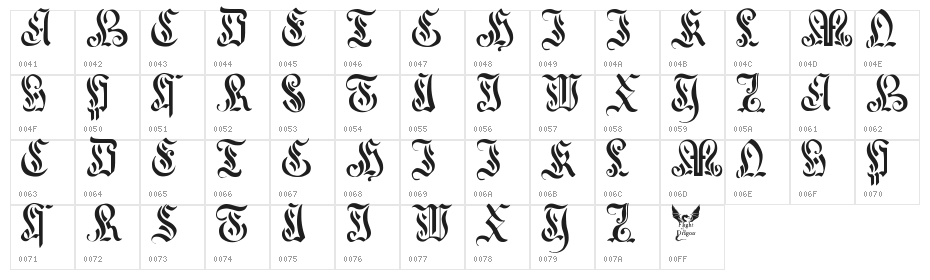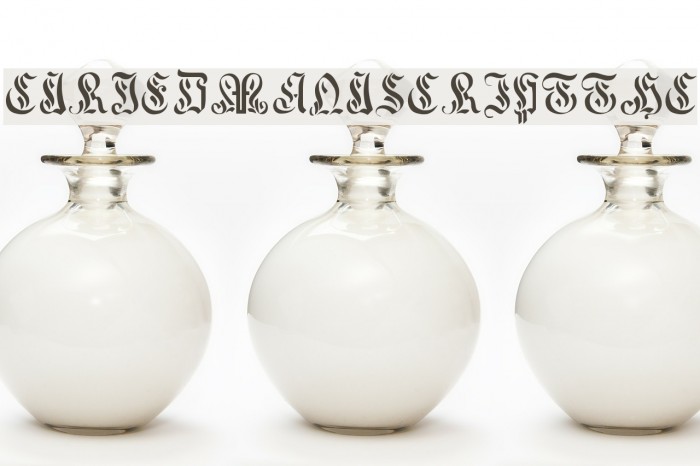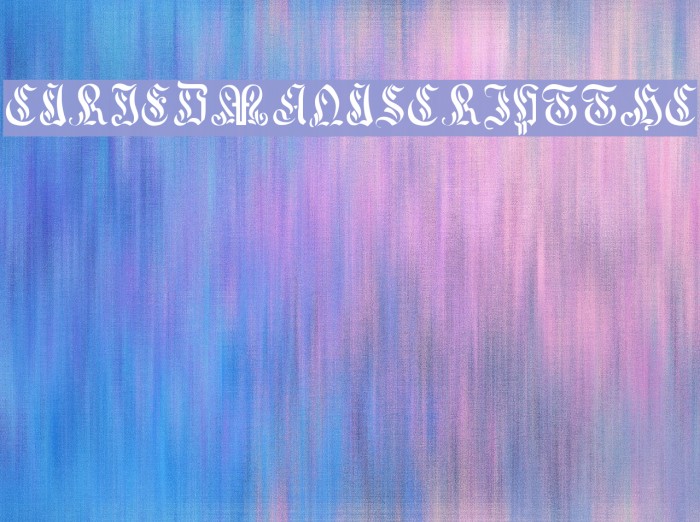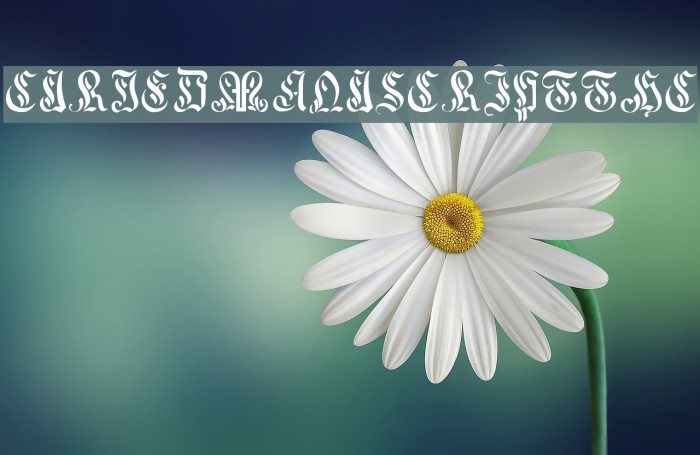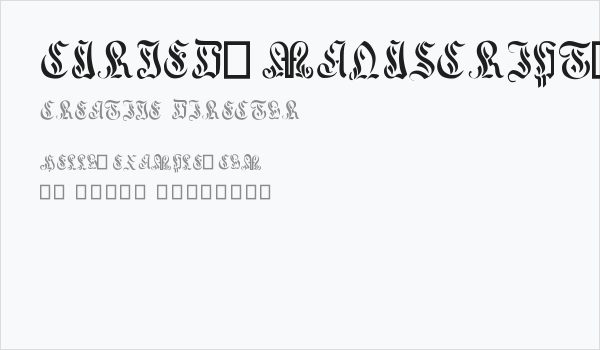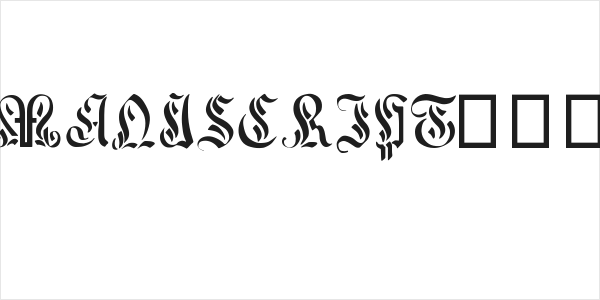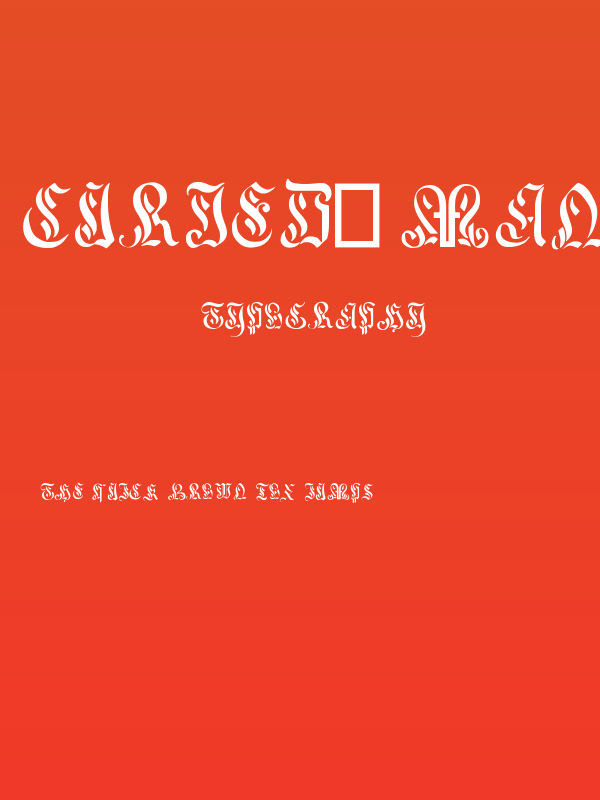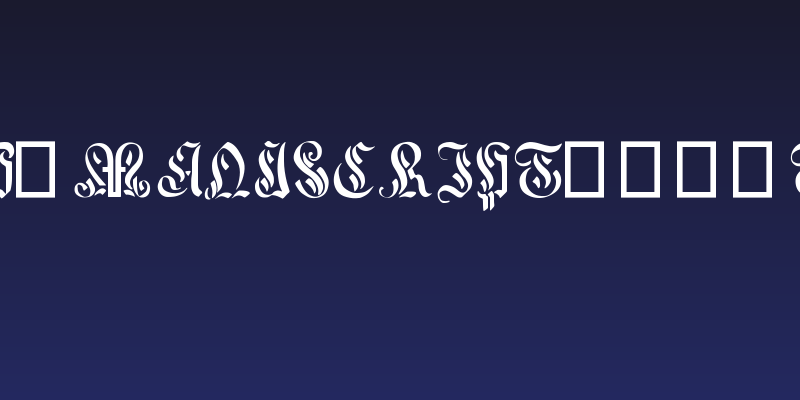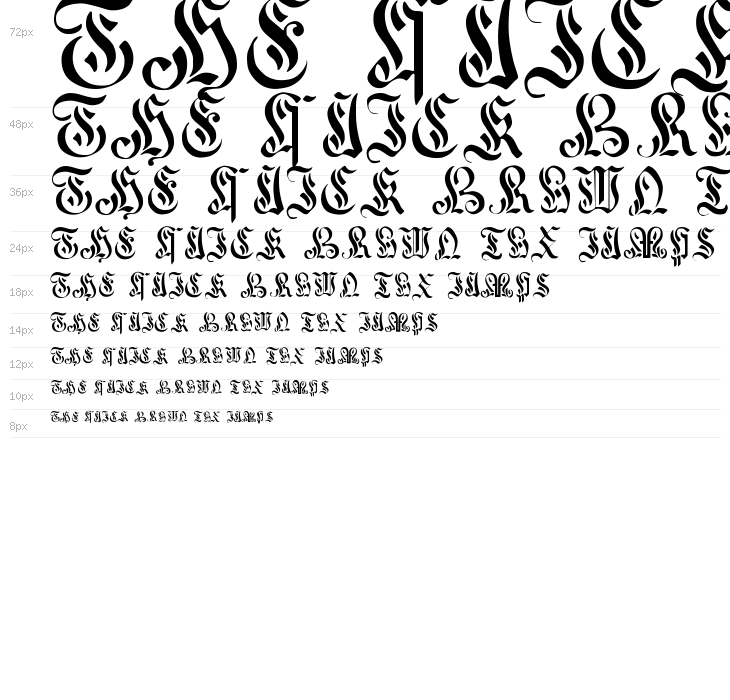
Curved-Manuscript--17th-c- Font
Curved-Manuscript--17th-c- Description
This font embodies the intricate and ornate style of 17th-century manuscripts, characterized by its elaborate curves and flourishes. Each letter is crafted with a high level of detail, reflecting the artistic handwriting of the period. The uppercase letters are particularly decorative, with extended strokes and loops that give a sense of elegance and grandeur. The lowercase letters maintain a consistent style, complementing the uppercase with their own set of embellishments. This font captures the essence of historical calligraphy, making it ideal for projects that require a touch of vintage sophistication.
| Use Case | Decorative headings, Invitations, Certificates |
| Proposed Projects | Ideal for historical documents, wedding invitations, certificates, and decorative headings. |